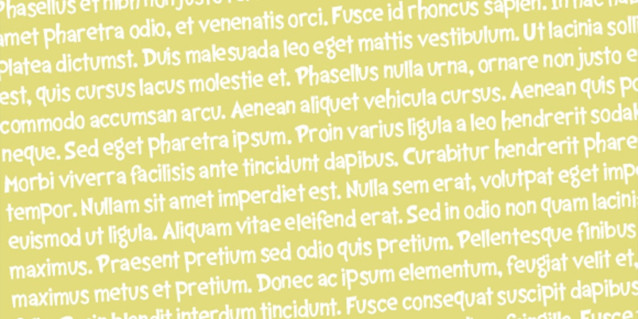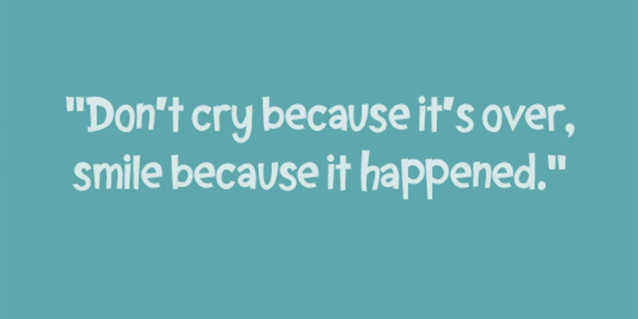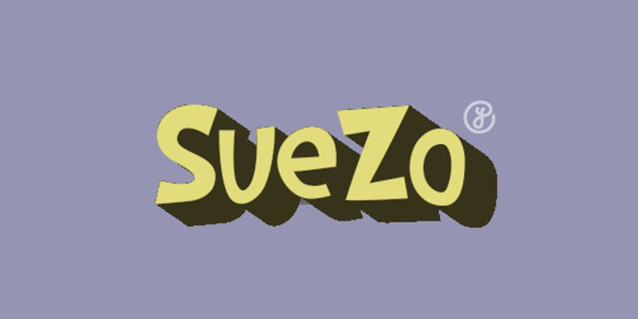
SueZo Playful Font
SueZo Playful Font, a lively and imaginative font designed to spark joy and creativity in every project. Inspired by the charm of playful storytelling and whimsical art, SueZo is perfect for designs that aim to inspire curiosity, wonder, and a sense of adventure.